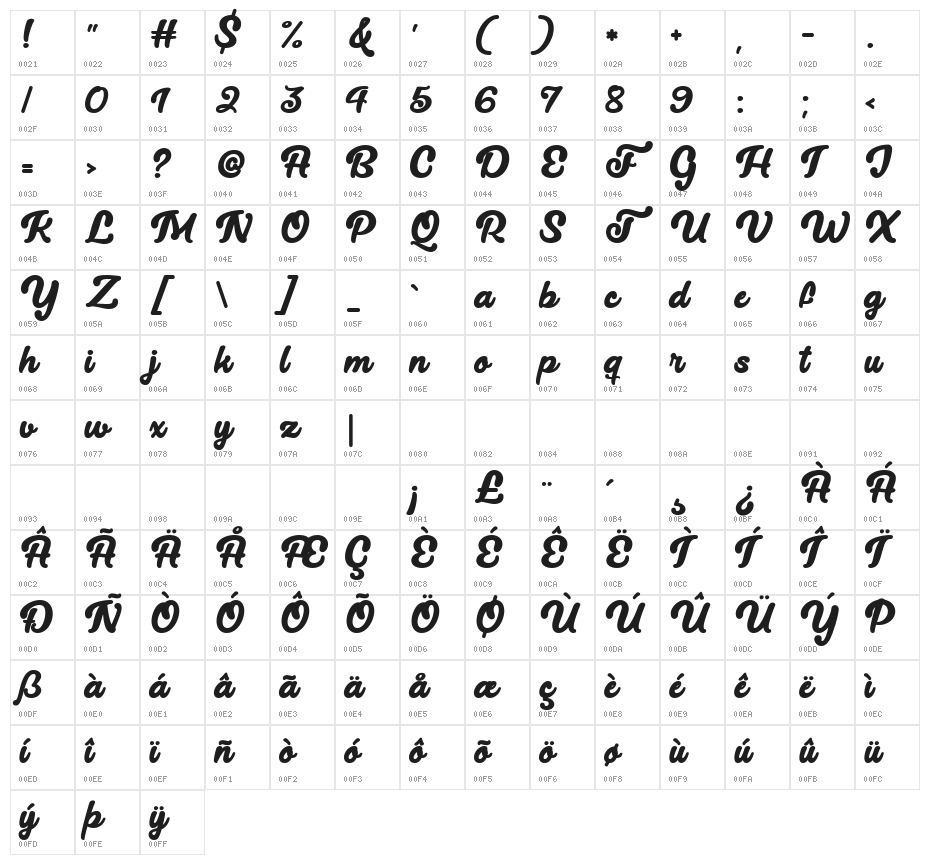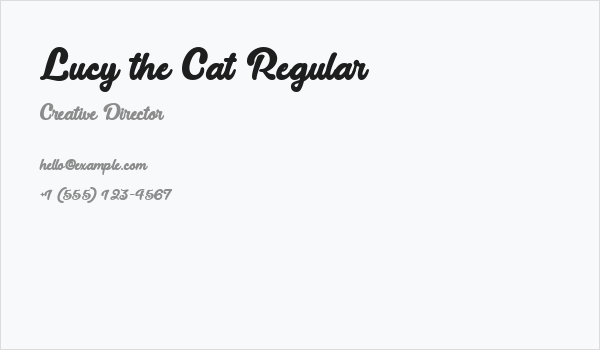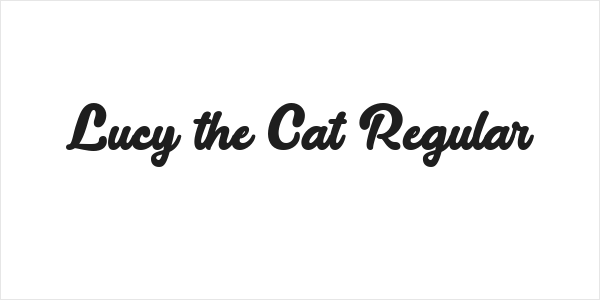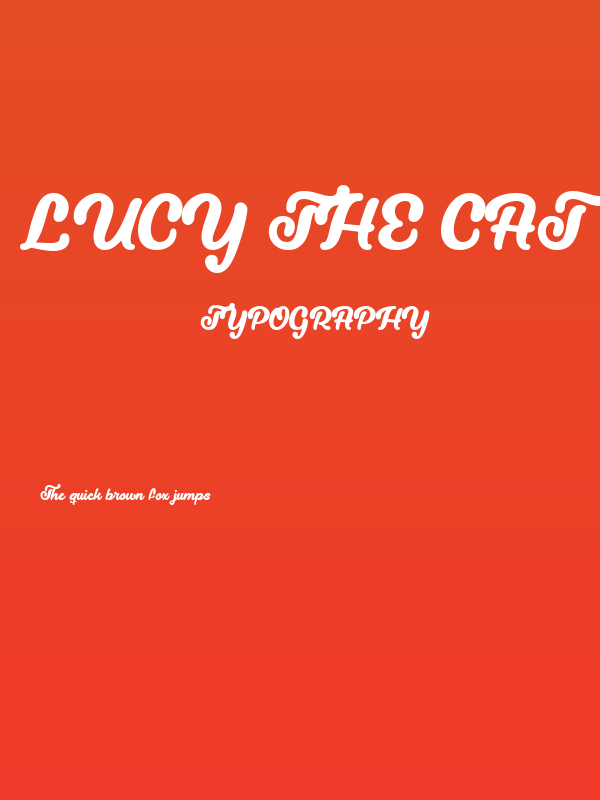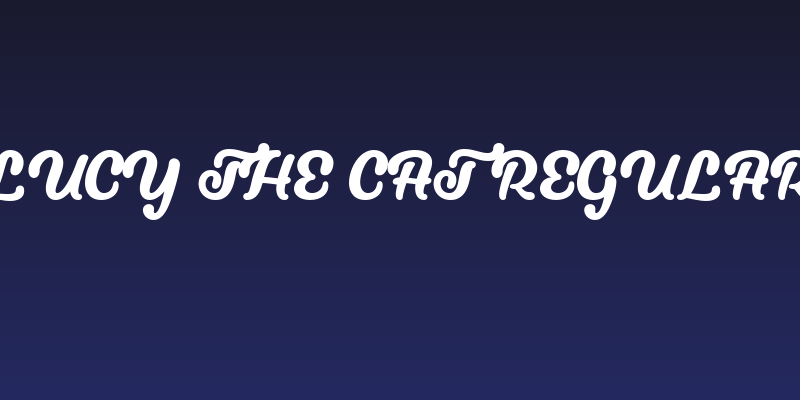
Lucy the Cat Regular Font
Lucy the Cat Regular Description
This font features a playful and bold script style, characterized by its flowing, cursive letterforms. The uppercase letters are elegantly connected, while the lowercase letters maintain a consistent, rounded appearance. The numbers and special characters are designed to match the overall aesthetic, with a whimsical touch that enhances the font's charm. The strokes are thick and uniform, providing a strong visual impact. This font is ideal for creating eye-catching designs that require a touch of personality and flair.
| Proposed Projects | Ideal for greeting cards, playful branding, children's book covers, and creative posters. |